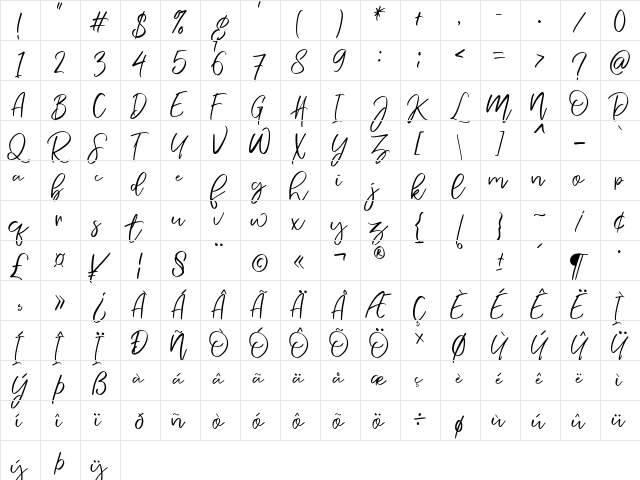
Nermola Script Regular
| Foundry | Alit Design |
| Designer | Alit Suarnegara |
Design Context for Nermola Script Typeface
Nermola Script flows with the natural rhythm of handwritten lettering, making it ideal for designs that call for warmth and personal expression.
Font Pairing: Combine Nermola Script with a simple geometric sans for maximum contrast — the tension between flowing curves and clean structure is a classic typographic pairing.
Pro Tip: Pair Nermola Script with a clean sans-serif for supporting text. The contrast between fluid script and geometric structure creates an elegant typographic hierarchy.